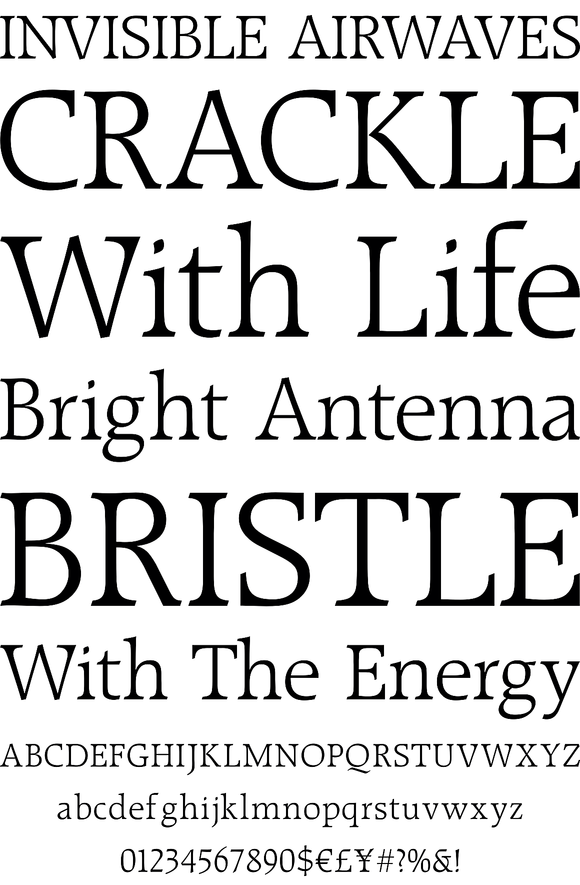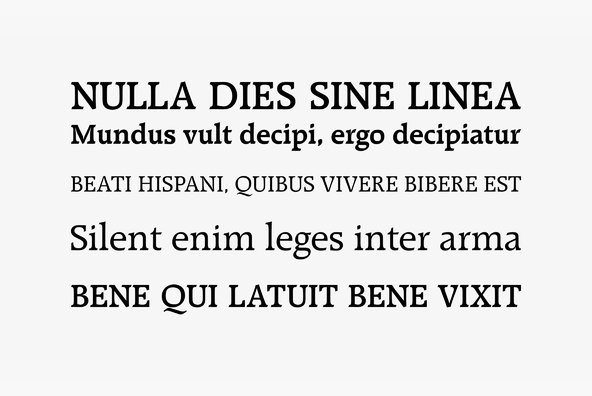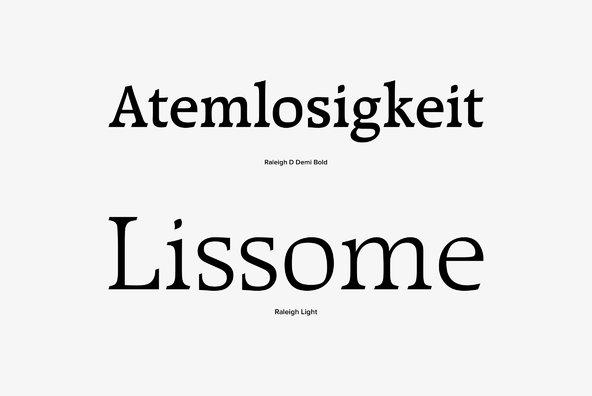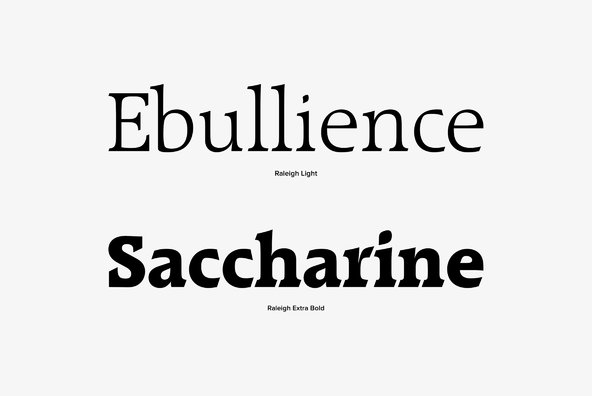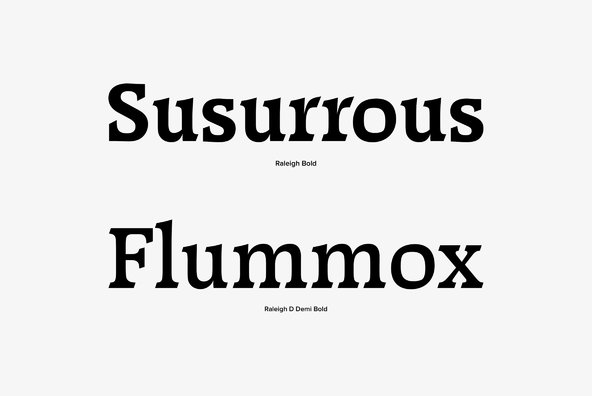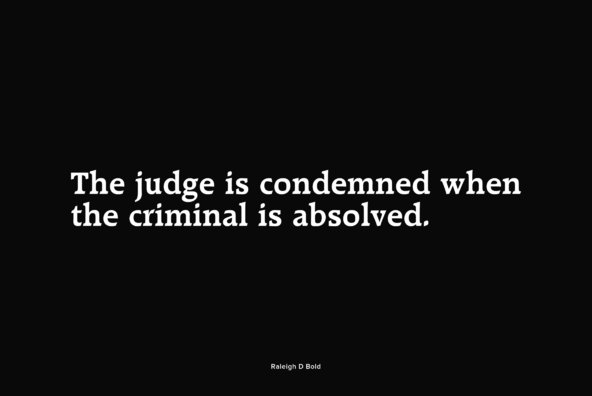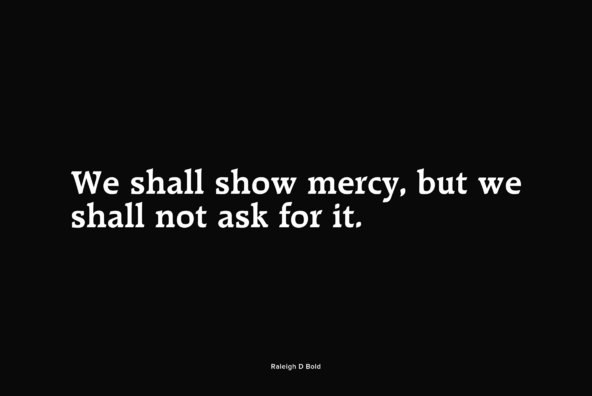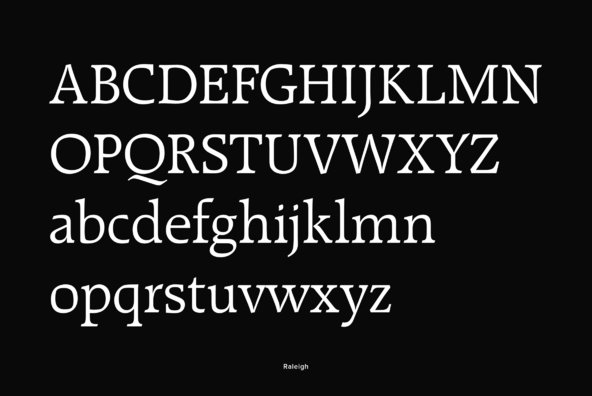
Raleigh
Raleigh is an antique, heavy serif typeface originally designed by Adrian Williams and Robert Norton in 1977. It contains a conservative, American advertising feel and is loaded with 12 weights in the complete family. It contains language support for West, East, Turkish, Baltic, and Romanian.